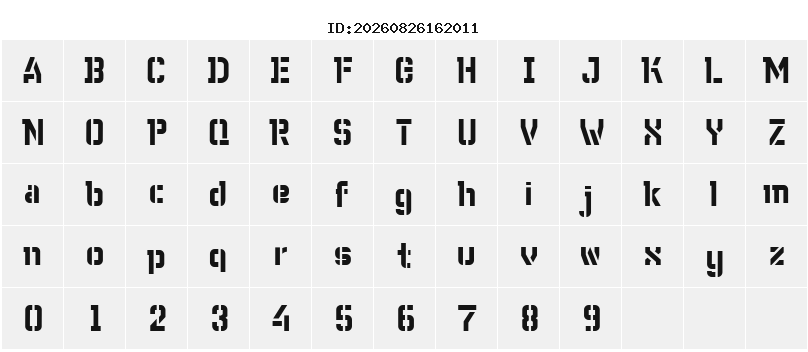
• Font Name: WC Wunderbach Bta
• Full Font Name: WC Wunderbach Bta DemiBold
• Designer: WC Fonts
About WC Wunderbach Bta.ttf
WC Wunderbach Bta.ttf is a modern, elegant sans-serif font designed for ultimate readability and visual harmony. Perfect for branding, headlines, web design, and print materials.